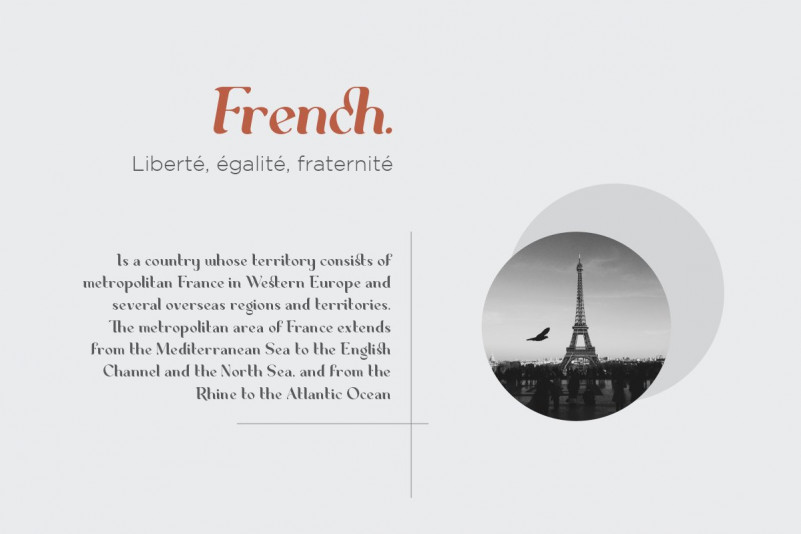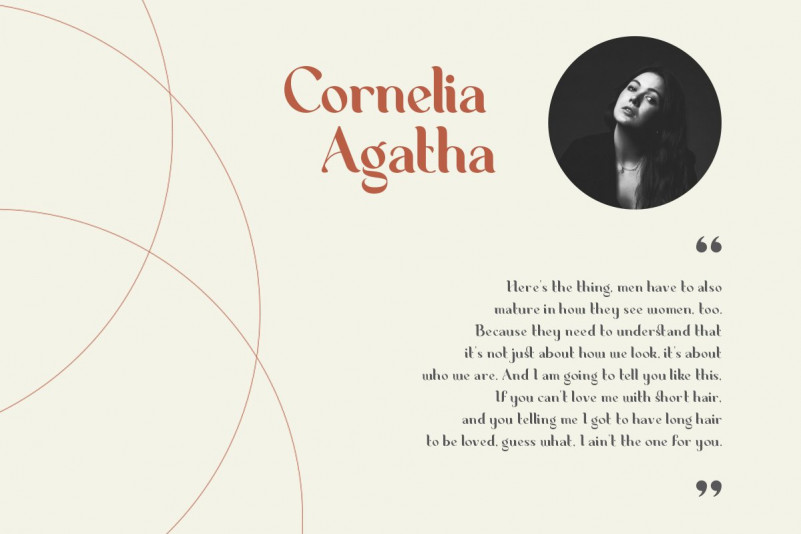
Native Txt Serif Font
Native-Txt is a cool, bold and assertive serif font. This adaptable and modern font works on a variety of designs and projects, both formal and informal.